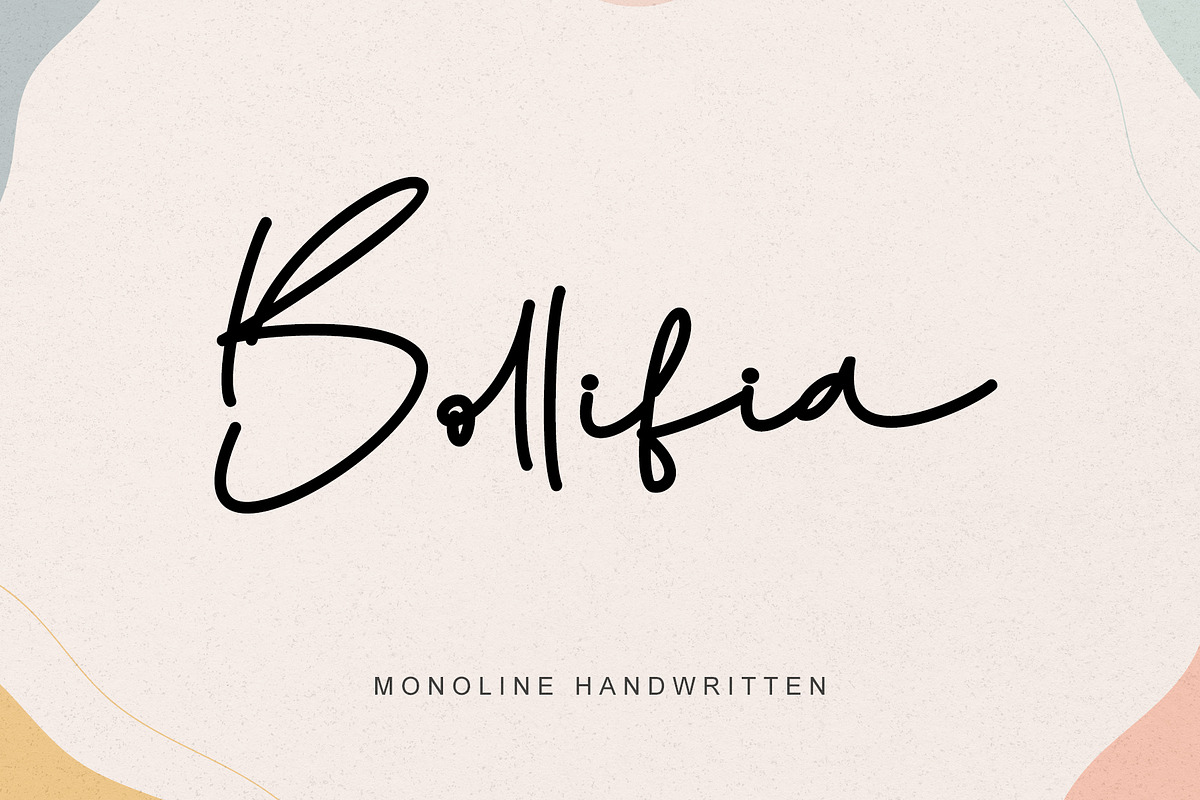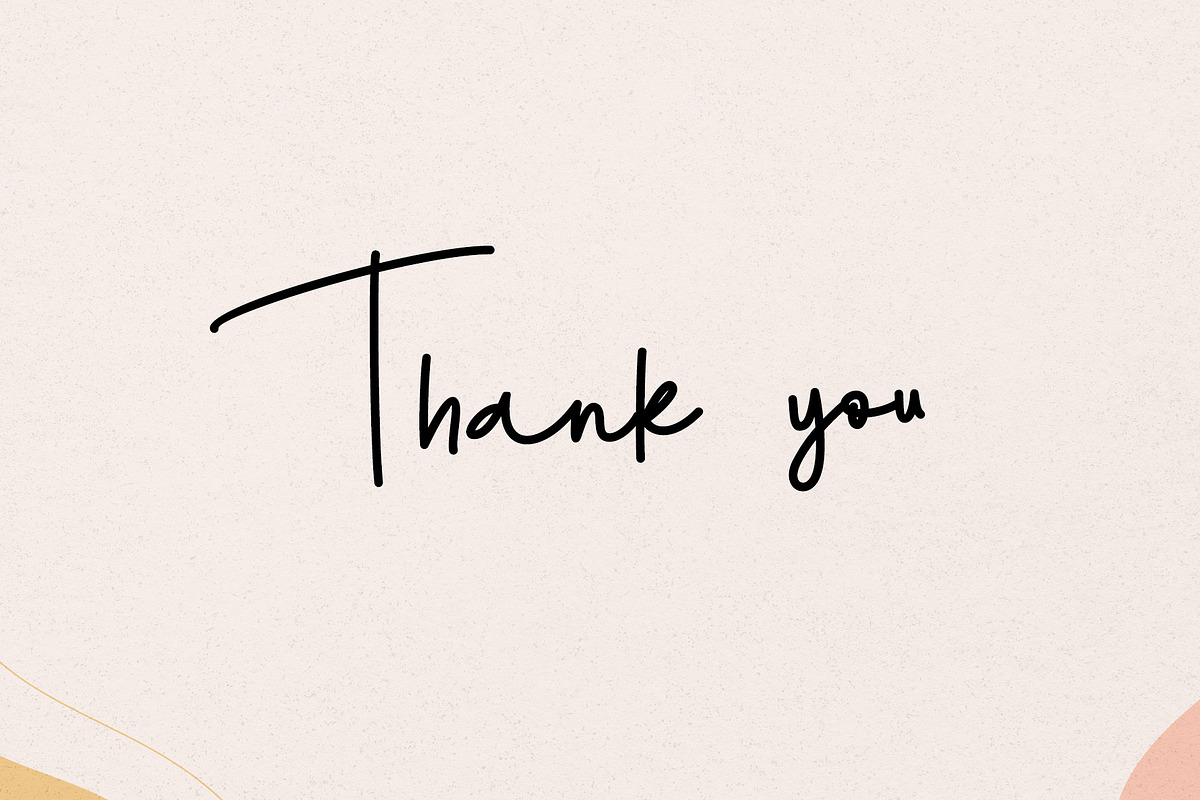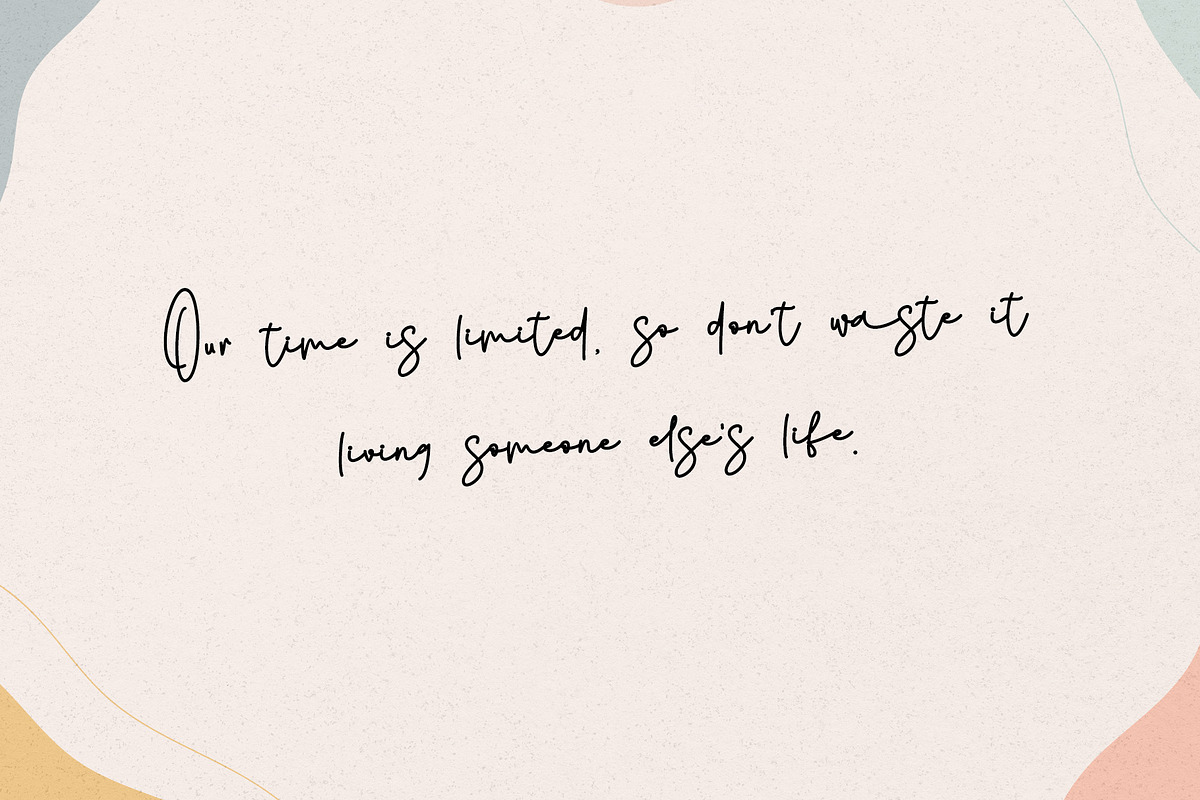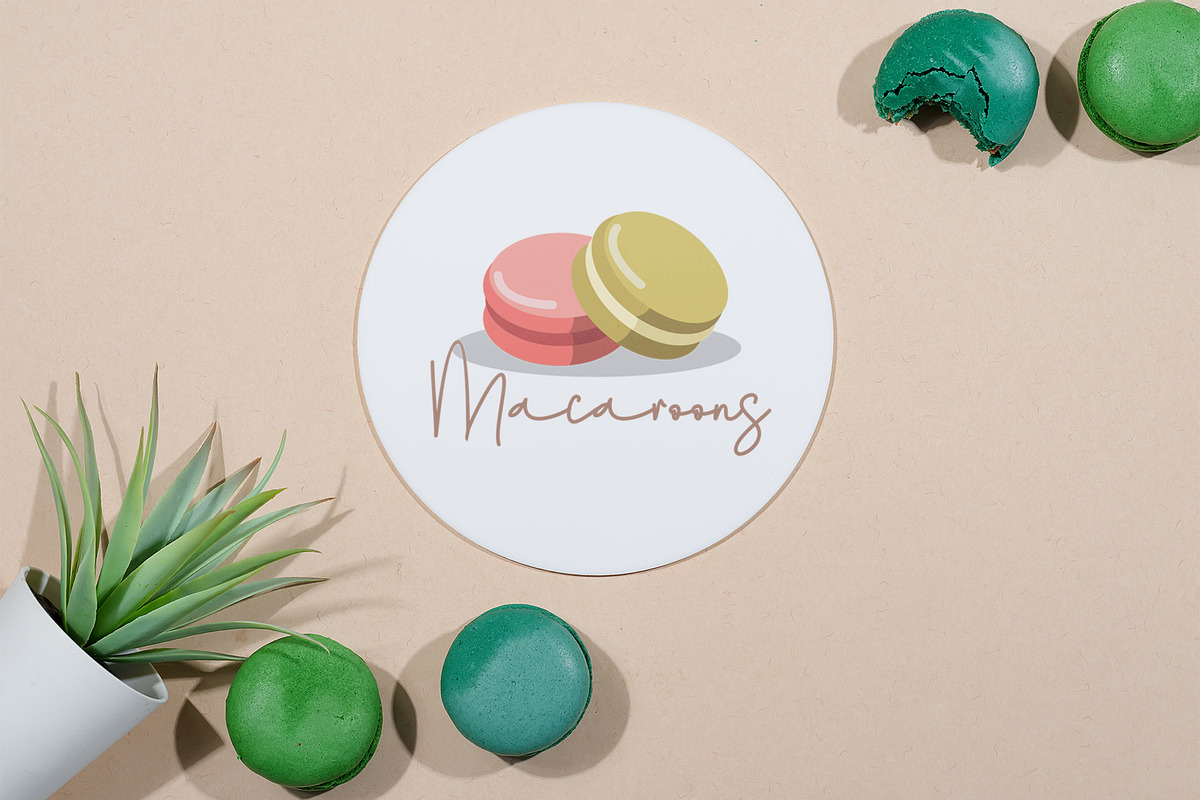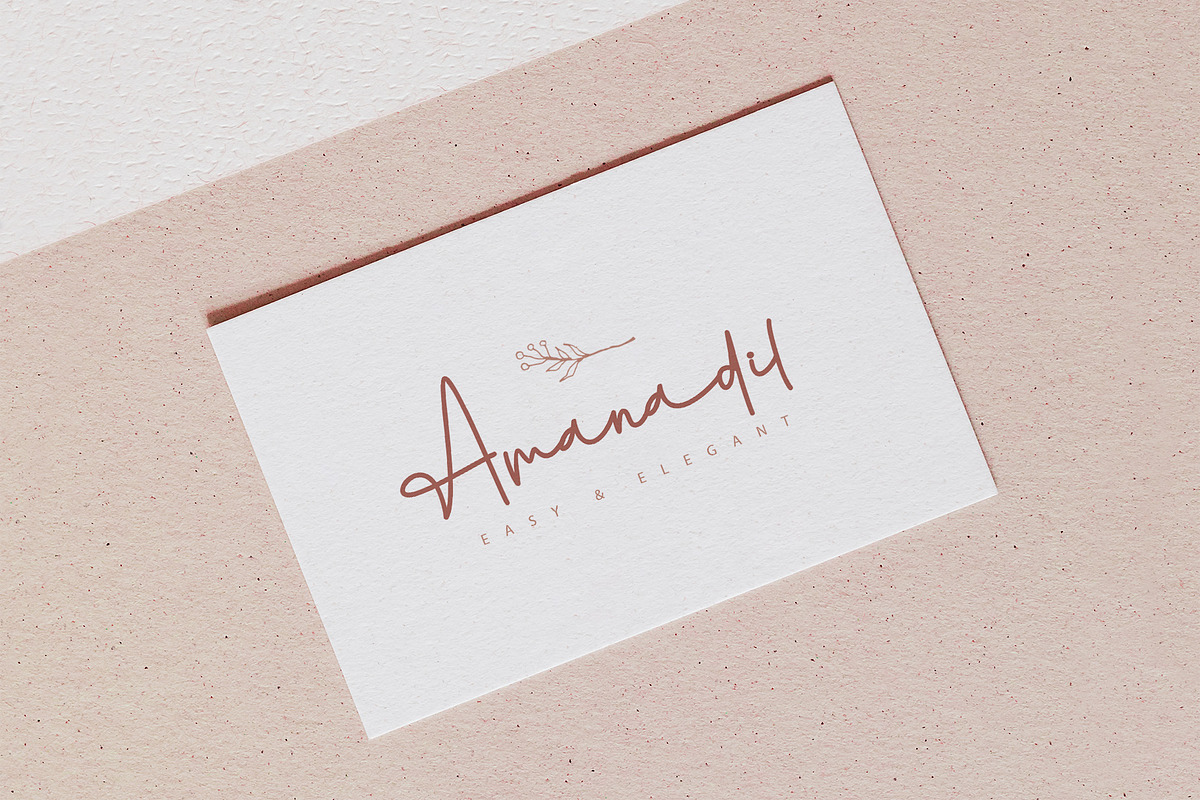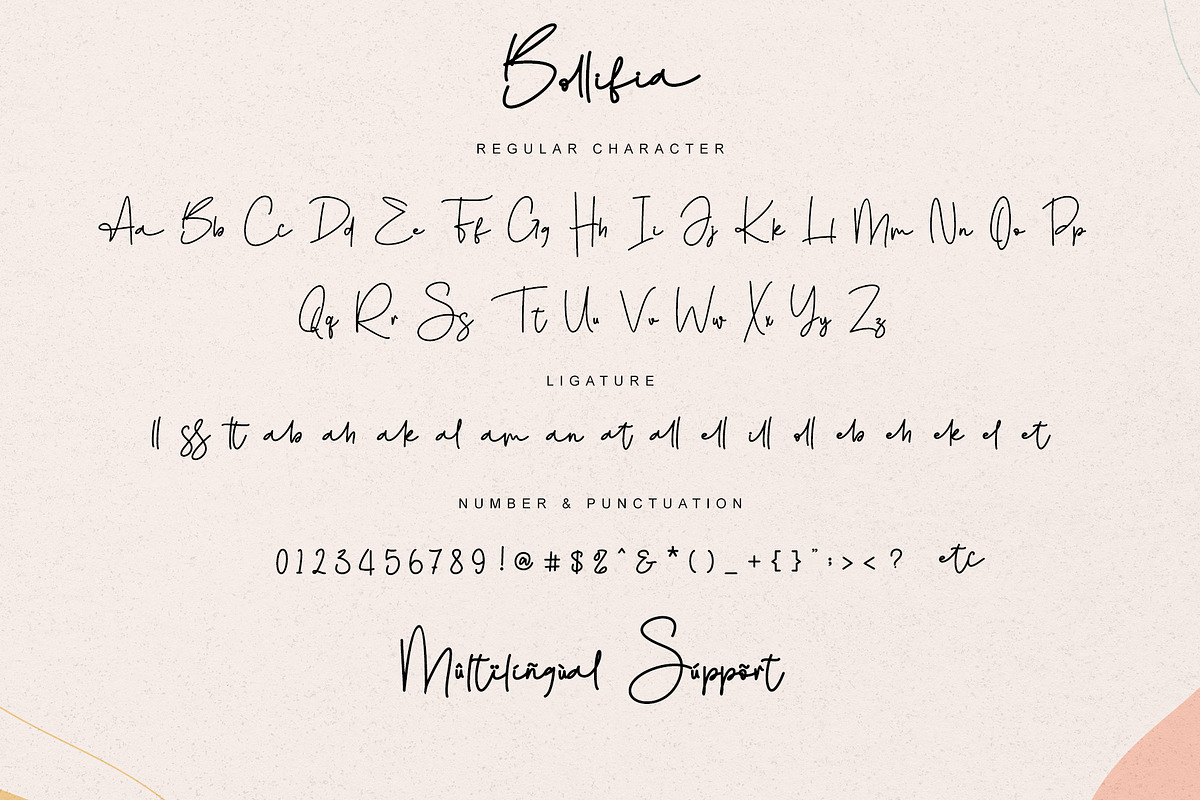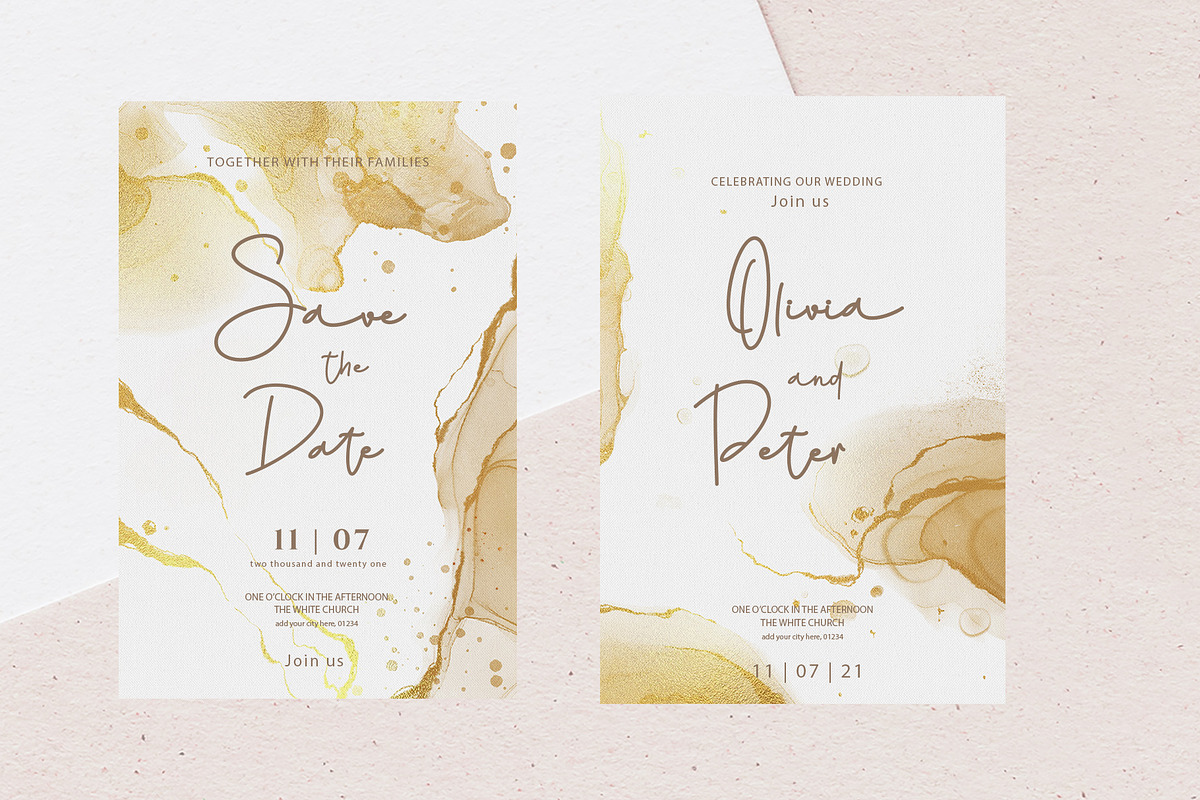
Bollifia
Bollifia is a stunning monoline-style script font as charming and elegant. This stunning handwritten font is a stylish homage to classic handwriting. It also features many special features including glyphs and ligatures so that it displays natural and original handwriting. Bollifia font It looks beautiful on a variety of designs requiring a personalized style, such as wedding invitations, thank you cards, advertising, poster, greeting cards, logos, and so on. This font is PUA-coded which means you can access all the amazing glyphs!
- Support multilingual; ä ö ü Ä Ö Ü ß ¿ ¡
- lowercase and uppercase letters